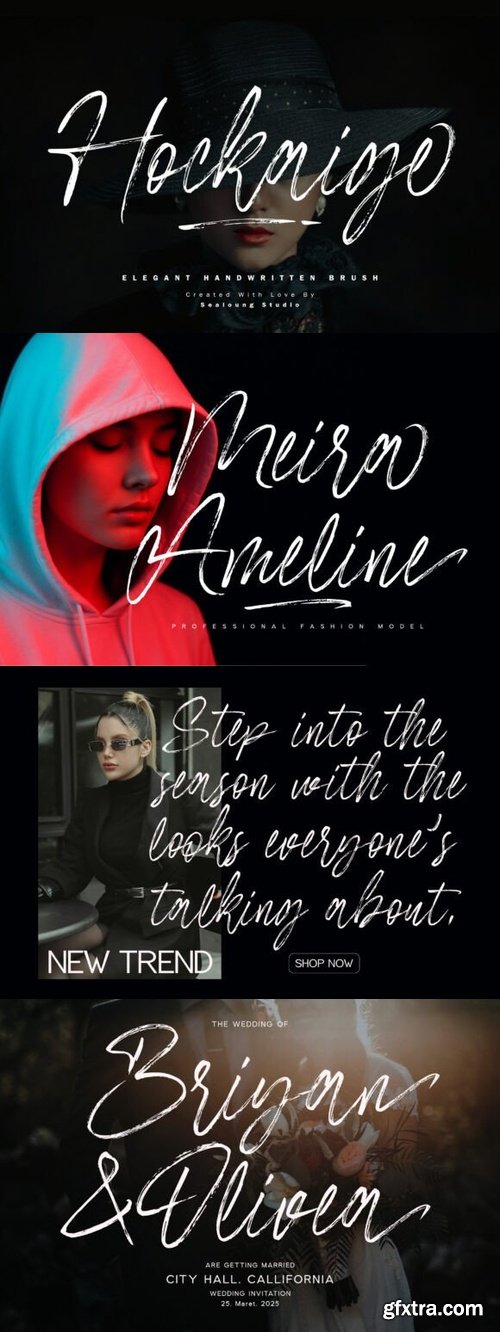
- Hockaige is an elegant handwritten brush font that combines the organic beauty of brushstrokes with a refined and sophisticated design. Its flowing, dynamic curves and delicate brush marks create a harmonious and artistic feel, making it the perfect choice for designs that require a personal, yet polished touch.
- Designed with meticulous attention to detail, Hockaige adds authenticity and elegance to your projects. Whether you're creating logos, invitations, branding materials, or creative designs, this font brings a timeless, handcrafted feel that stands out with grace and charm.